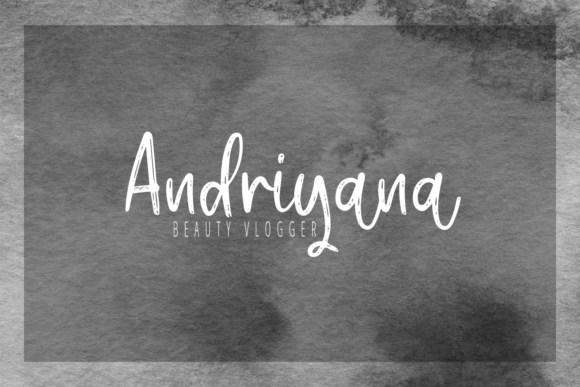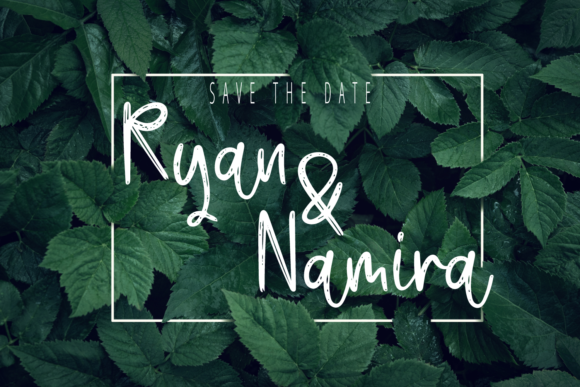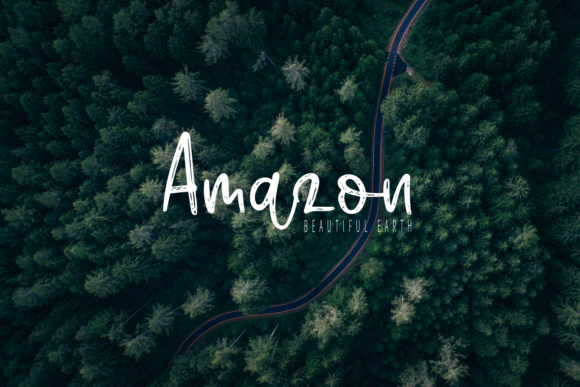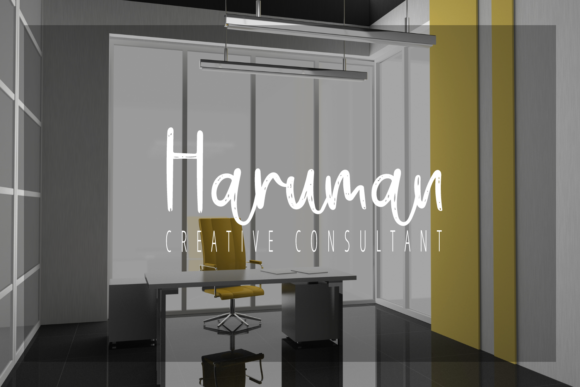
Sugar Caramel Font
About Sugar Caramel Font
Sugar Caramel is a beautiful, light handwritten font with a unique feel and a stunning impact. It will add a luxury spark to any design project that you wish to create!